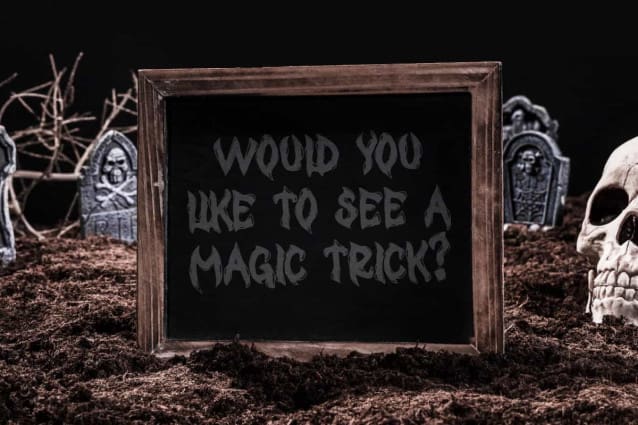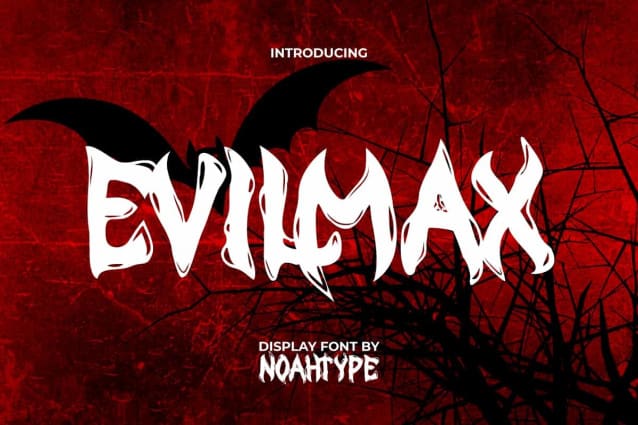
Evilmax Display Font
Evilmax Display Font is a horror creepy display font with sinister feel by NoahType. This font can give a horror and mysterious impression to every design you create, such as brand image, custom design, invitation, label, marketing material, menu, poster, printing, product packaging, quotes, signage, website, and many more!
Evilmax Display Font includes full set of ALL CAPS for Uppercase and Lowercase Basic Characters, Numerals, Punctuation, and Symbol. This font will give awesome touch and also a perfect choice for many industries, such as advertising, art, café, event or festival, fashion, game, movie, printing, publishing, etc.